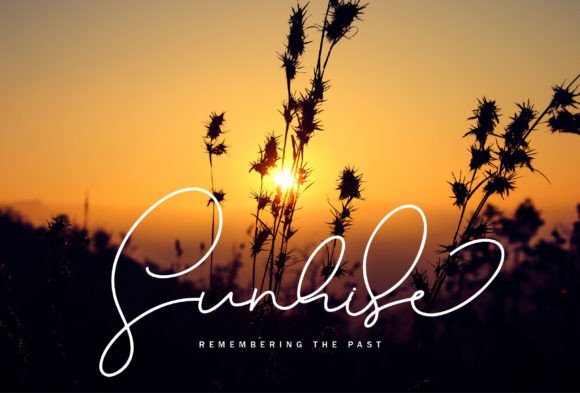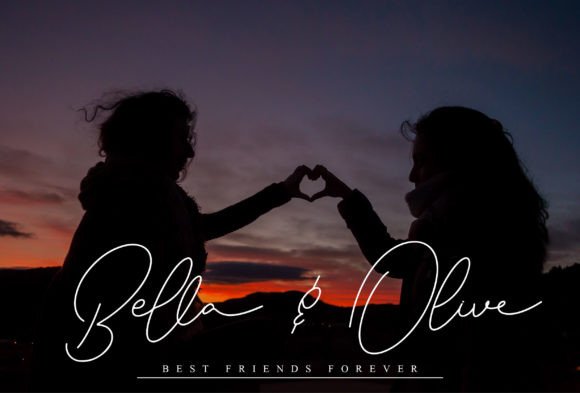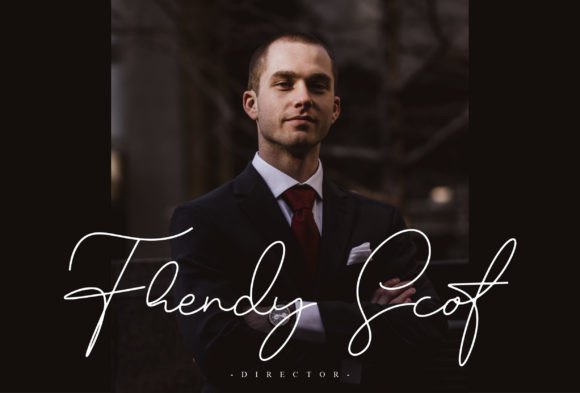
Introduction to Australlia Font
Have you ever stared at a blank page, trying to come up with the perfect design for a creative project, only to be met with a sea of bland font options? We’ve all been there. But what if I told you that there’s a font that can add a touch of magic to your design? Enter the Australlia Font, a beautiful script typeface that’s perfect for designers looking to elevate their work.
With its hand-drawn monoline lines and simple yet elegant design, the Australlia Font is a design resource that’s hard to resist. Whether you’re working on a brand identity, a wedding invitation, or a book cover, this high-quality font is sure to impress. And the best part? It’s available for free download, complete with a transparent background that makes it easy to customize.
As a designer, you know that the right font can make all the difference in a project. That’s why the Australlia Font is a valuable addition to any design toolbox. With its open type features and PUA encoding, you’ll have access to a wide range of glyphs and swashes that will add a touch of personality to your work.
Key Features of Australlia Font
- High-quality font designed for creative projects, ideal for use in graphic design, digital art, and other design resources.
- Features a unique and stylish design, making it an excellent choice for designers looking to add a touch of elegance to their creative projects.
Honest Review: Australlia Font
What works well with this font is its versatility – it’s perfect for a creative project that needs a unique touch. The transparent background option also allows for seamless integration with images and other design elements.
Here are some of the key features that caught my attention:
- High-quality font design
- Great for creative projects
- Excellent design resource
⚠️ Limited character set – the font may not support all languages or special characters, which could be a problem for certain design projects.
Overall, I’m quite impressed with the Australlia Font. It’s a high-quality design resource that’s perfect for creative projects. With its transparent background and free download option, it’s definitely worth checking out.
Tips for Getting the Most Out of Australlia Font
Use Australlia Font in conjunction with a high-quality image or design element to create a visually appealing design. Experiment with different font sizes and styles to create a unique and creative look. Australlia Font is a great resource for any design project, whether it’s a business card, brochure, or website.